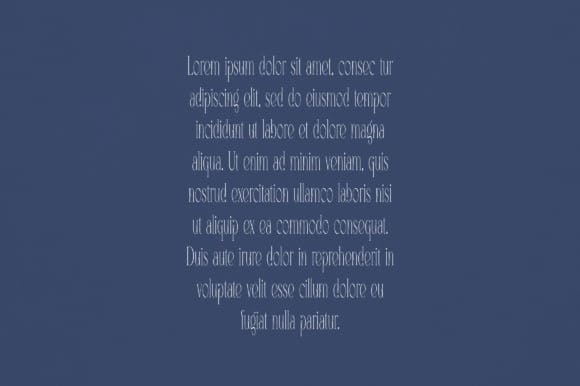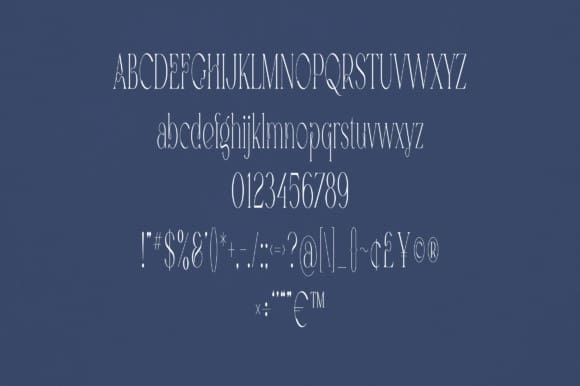
Dixie Font
Dixie Font is an elegant and versatile font that will make your typography truly unique! It will enchant every logo, branding, headline, or plain text!